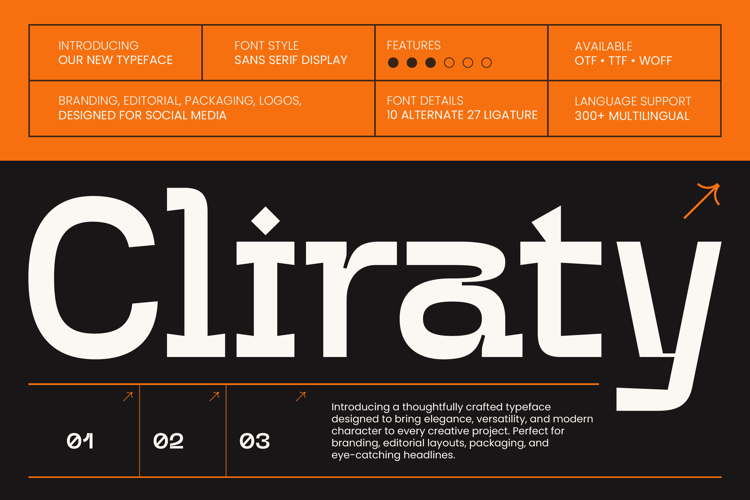
Cliraty - Sans Serif Display
Elevate your design identity with a typeface that balances modern edge and timeless sophistication. Cliraty - Sans Serif Display is a masterclass in modern aesthetics, offering a unique blend of clean lines and bold geometric forms. This premium display font is meticulously crafted to ensure maximum visual impact, making it an essential tool for designers seeking to create a distinctive brand presence. Its sleek profile and contemporary character provide a refreshing take on the traditional sans serif genre.
Unlock unparalleled creative flexibility with a robust set of professional typographic features. Cliraty - Sans Serif Display comes equipped with 10 stylistic alternates and 27 dynamic ligatures, allowing for endless customization in every composition. Whether you are building a minimalist logo or a complex editorial layout, the structural integrity of this font remains uncompromised. This level of detail ensures that your headers and display text look polished, professional, and entirely bespoke.
Expand your creative reach across borders with comprehensive global compatibility. With its extensive multilingual support covering over 300 languages, Cliraty - Sans Serif Display adapts seamlessly across global markets, making it incredibly versatile for international projects. This feature empowers brands to maintain a consistent visual voice regardless of geographic location, ensuring that your message is communicated clearly and stylishly to a diverse worldwide audience.